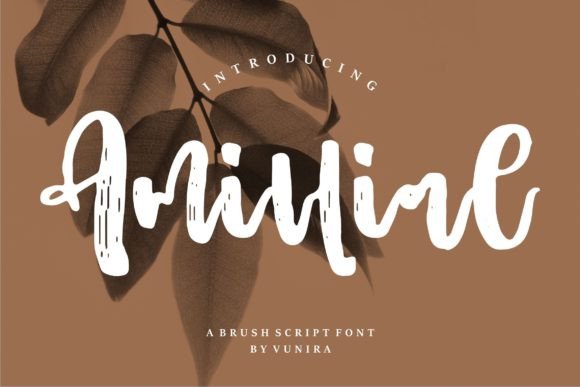
The Power of Amillial Font: Unleashing Bold Statements in Your Designs
I still remember the design project that led me to discover the Amillial Font. I was working on a protest poster for a social cause, and I needed a font that could convey the strength and emotion of the message. After hours of scrolling through font libraries, I stumbled upon Amillial Brush Script, and it was love at first sight! ✨ The thick, expressive strokes and loud, dry brush imperfections instantly resonated with the project’s tone and purpose.
An Honest Review of Amillial Font
• 💥 Expressive and bold: Amillial Font is perfect for making strong statements and grabbing attention.
• 🎨 Dry brush imperfections: The font’s unique texture adds a touch of authenticity and raw emotion to designs.
• 🔍 PUA encoded: Easy access to amazing glyphs and ligatures, making it simple to create stunning text arrangements.
• 🤝 Versatile: Suitable for various design projects, from protest posters to branding and packaging.
While Amillial Font is an excellent choice for many design projects, there are a few things to keep in mind: ⚠️
• 🤔 Limited use in small text sizes: Due to its bold nature, Amillial Font may not be the best choice for body text or small captions.
• ⚠️ Potential overuse: With its strong personality, it’s easy to overuse Amillial Font; be mindful of balancing it with other design elements.
The Designer Inspiration Behind Amillial Font
The Amillial Font was designed with the intention of creating a bold, expressive typeface that could convey strong emotions and statements. The designer’s inspiration likely came from the world of street art and activism, where bold, eye-catching graphics are used to make a point. 💥
What is the best use case for Amillial Font? Amillial Font is perfect for designs that require a bold, expressive statement, such as protest posters, social cause campaigns, and branding.
Is Amillial Font suitable for body text? No, due to its bold nature, Amillial Font is not ideal for body text or small captions. It’s best used for headlines and titles.